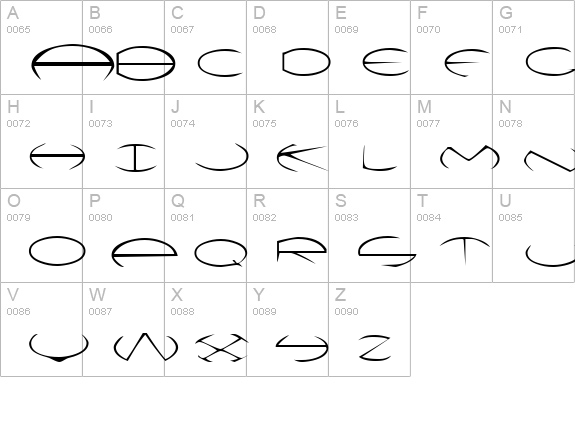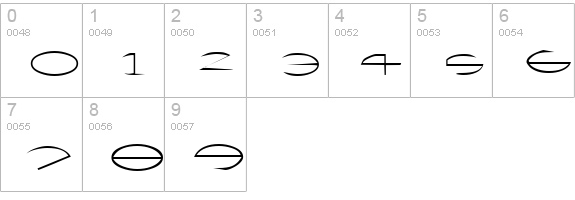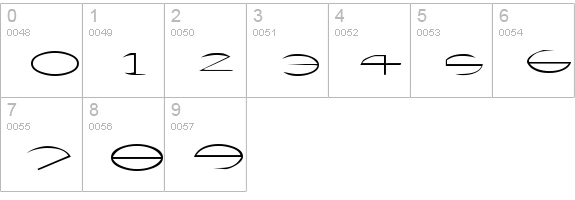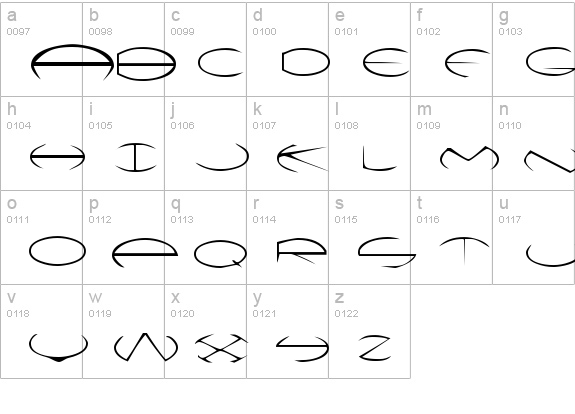
Victor Font Details
Victor font is a modern and versatile typeface that combines elegance with a hint of sophistication. With its clean lines and delicate curves, this font exudes a sense of professionalism and refinement that is perfect for a wide range of design projects. What sets Victor font apart is not only its aesthetic appeal, but also the fact that it is available for free. Yes, you heard it right! This incredible font can be downloaded for free at FontsMarket.com, making it accessible to designers and creatives from all walks of life. Whether you're creating a logo, designing a website, or working on a branding project, Victor font is sure to elevate your work to the next level. Its versatility allows it to be used in a variety of contexts, from corporate presentations to artistic endeavors. The crisp and clear details of Victor font make it highly legible, ensuring that your message is conveyed effectively to your audience. Its carefully crafted letterforms and balanced proportions make it a pleasure to work with, enabling you to create stunning typography effortlessly. So why wait? Head over to FontsMarket.com and download Victor font for free today. Unleash your creativity and let this remarkable typeface bring your designs to life. With Victor font, the possibilities are endless, and the results are sure to leave a lasting impression.